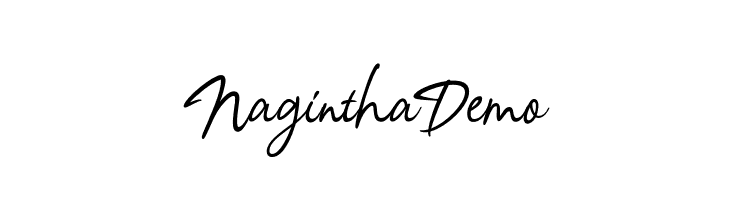
A dynamic, fluid script font with elegant, interconnected strokes.
A playful, handwritten font with bold, smooth strokes and a whimsical style.
An elegant, flowing script font with a handwritten style.
An elegant, flowing script font with smooth, cursive letterforms.
A playful and elegant script font with a handwritten touch.
A bold, expressive handwritten font with a lively brush-like style.
A casual, handwritten font with smooth, flowing strokes and a slight slant.
A lively handwritten font with fluid, connected strokes and a casual elegance.
A bold, playful handwritten font with rounded, slanted characters.
A flowing, cursive font with elegant, sweeping lines and a handwritten appearance.